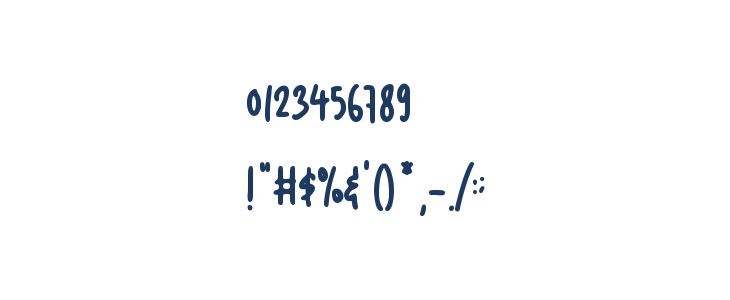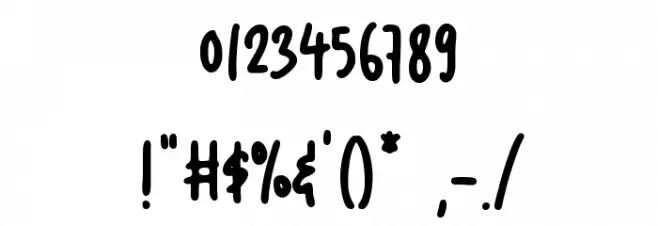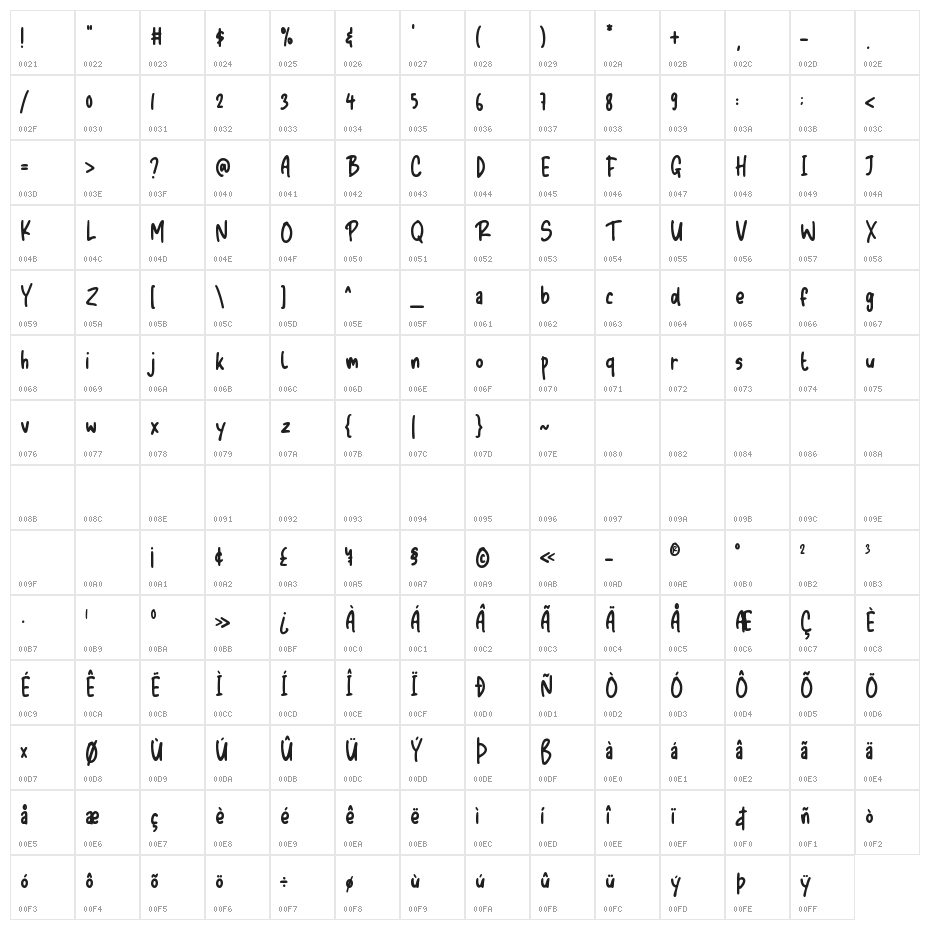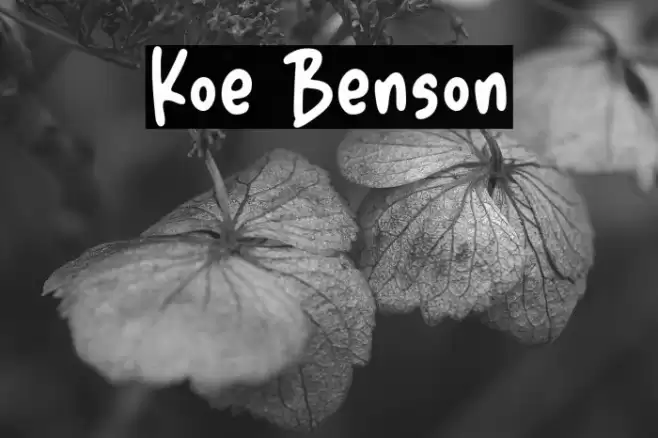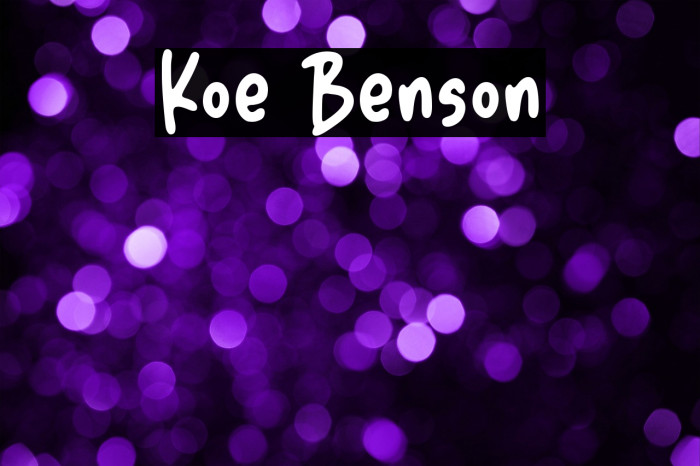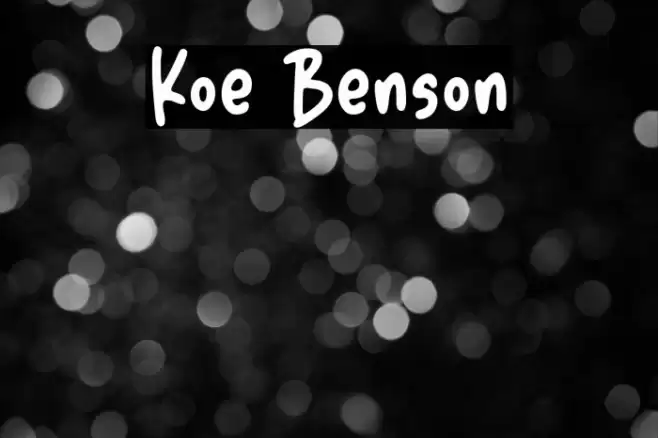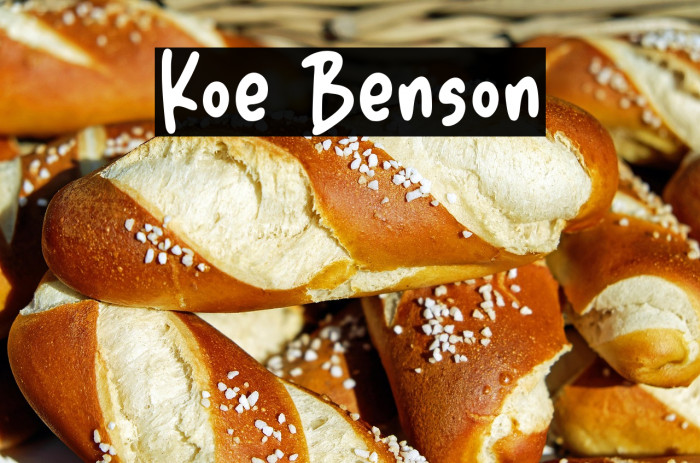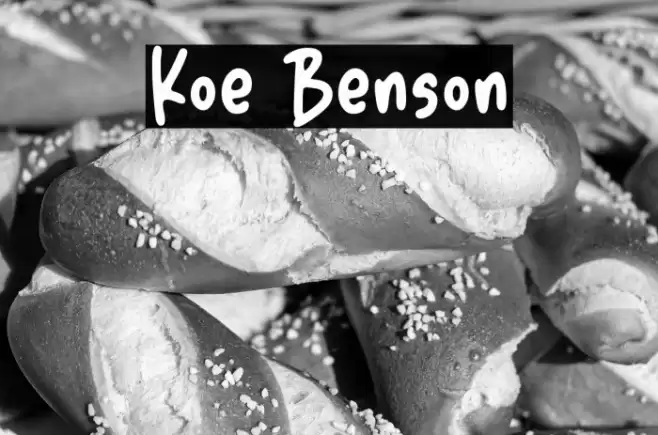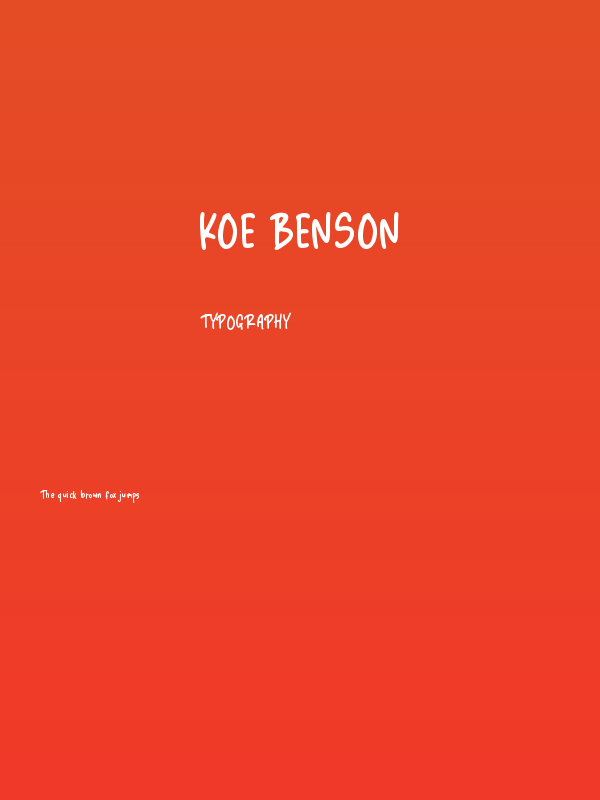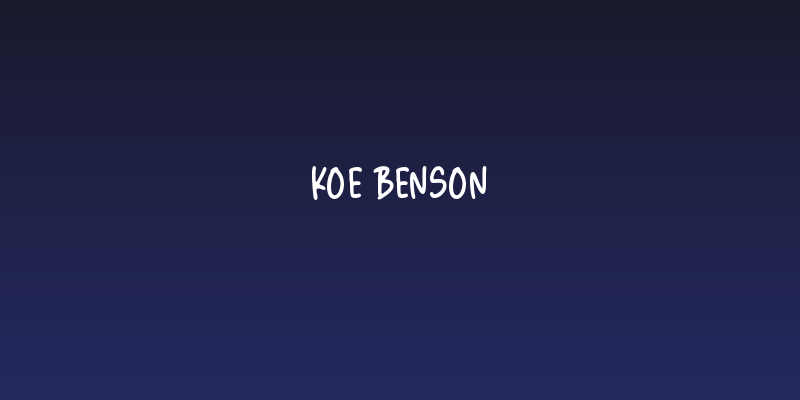
Koe Benson Font
Koe Benson Description
This playful and casual font features a handwritten style with a friendly and approachable appearance. The letters are slightly rounded with a consistent stroke width, giving it a uniform look while maintaining a natural, hand-drawn feel. The uppercase and lowercase letters are well-proportioned, and the numerals are clear and easy to read. The special characters complement the overall style, making it versatile for various uses. Its informal and relaxed nature makes it suitable for projects that require a personal touch.
| Use Case | Greeting cards, Children's books, Casual branding |
| Proposed Projects | Ideal for greeting cards, children's books, casual branding, and social media graphics. |